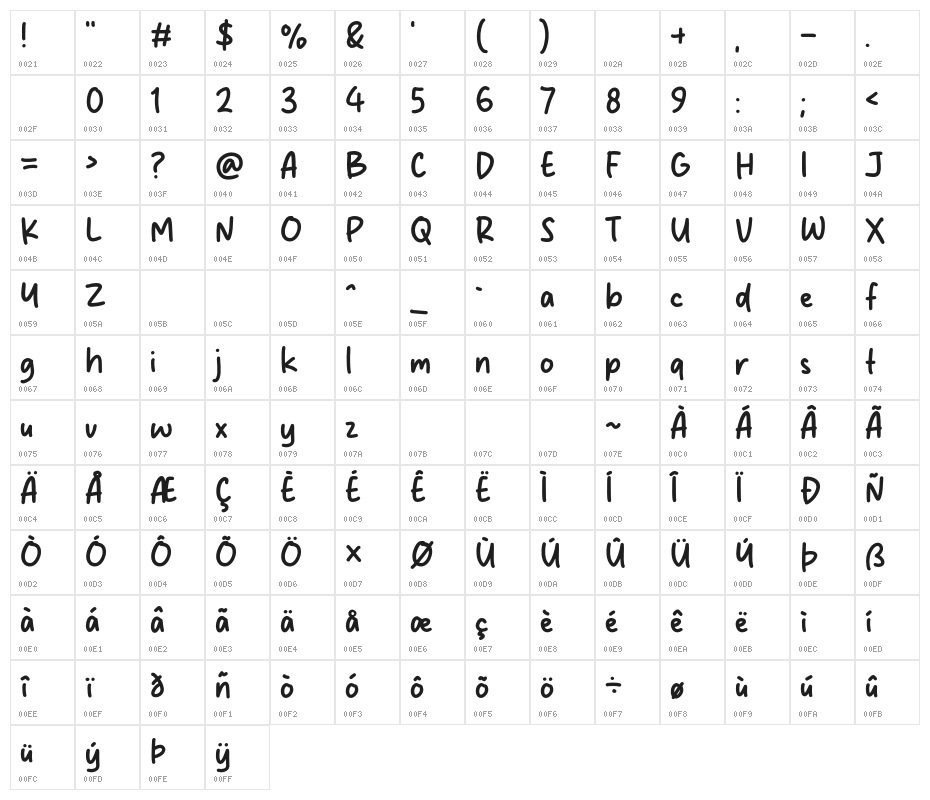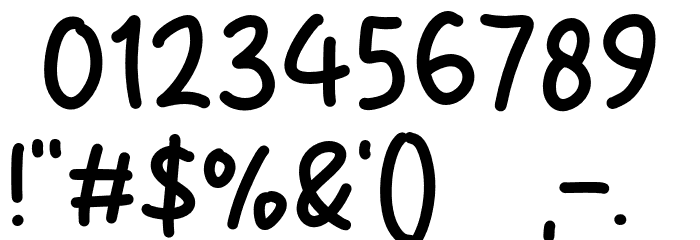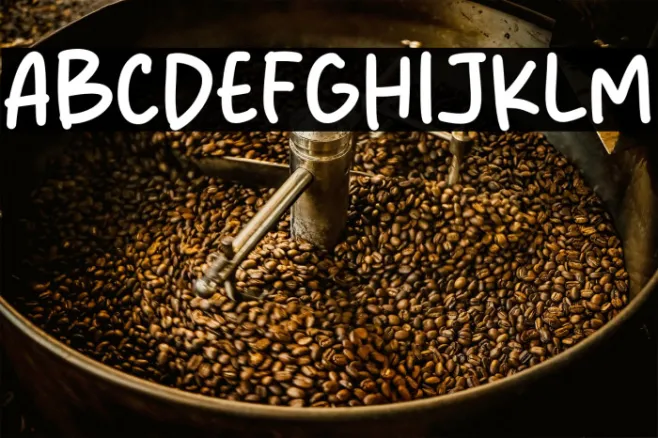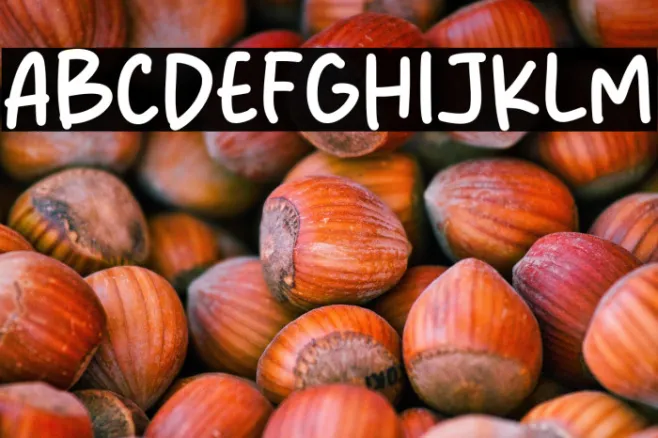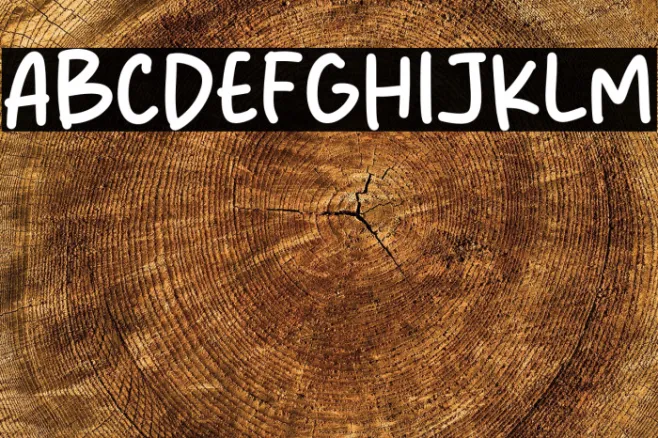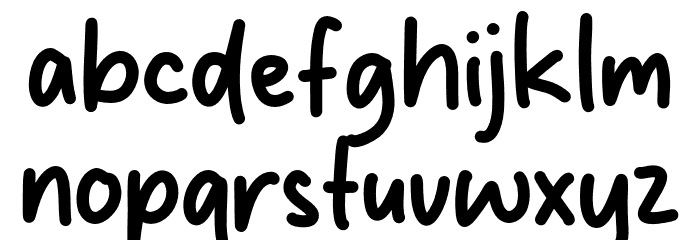
Brown Rice Font
Brown Rice Description
This font features a playful and informal handwritten style, characterized by its rounded and smooth letterforms. The strokes are consistent in width, giving it a uniform appearance. The letters are slightly tilted, adding a dynamic and casual feel. The font maintains a friendly and approachable look, making it suitable for projects that require a personal touch. The numerals and special characters are designed to match the overall style, ensuring cohesion across all text elements.
| Proposed Projects | Ideal for greeting cards, children's books, casual branding, and social media graphics. |